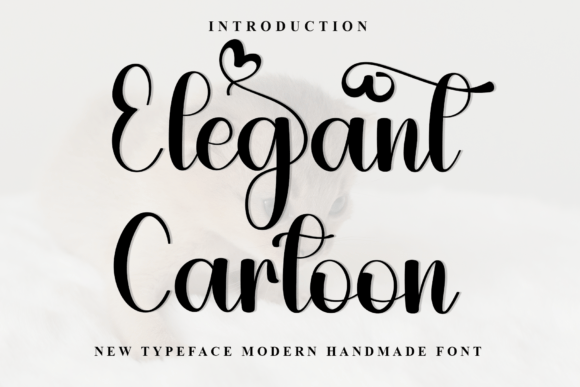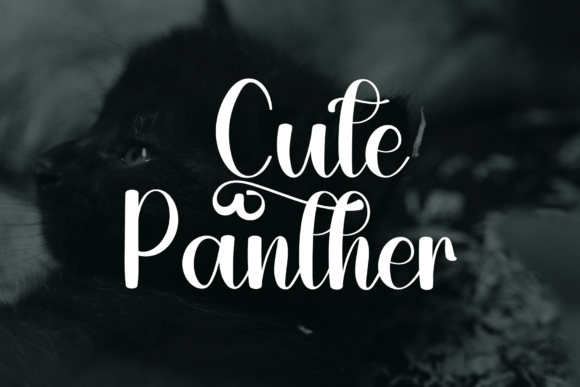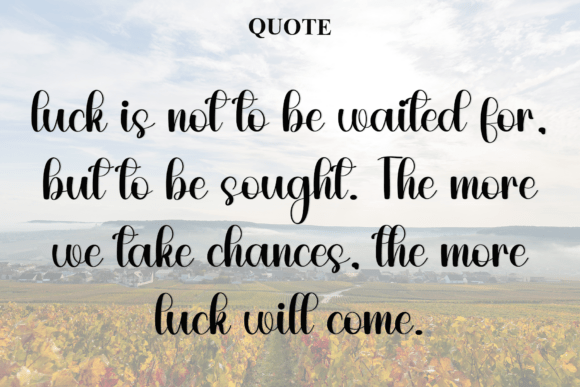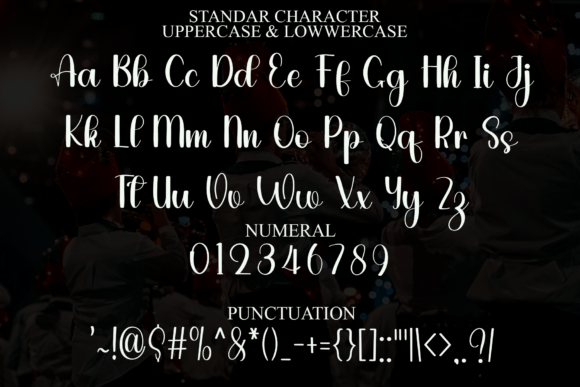
Where Creativity Meets Whimsy: The Charm of Elegant Cartoon Font
Have you ever been stuck in a creative rut, searching for the perfect font to bring your ideas to life? You know, that moment when you’re brainstorming a new project and suddenly, a spark of inspiration strikes – and you envision a playful, hand-drawn design that captures the essence of your vision.
Enter Elegant Cartoon Font, a delightful, casual font that exudes warmth and friendliness. Its rounded, playful strokes create a relaxed and approachable feel, making it perfect for personal projects, invitations, and social media graphics. Whether you’re a seasoned designer or a creative enthusiast, Elegant Cartoon Font is a valuable addition to your toolkit, offering a charming and unique touch to any design.
Elegant Cartoon Font Key Features
- Character Count: The font family includes over 200 characters, including letters, numbers, punctuation marks, and special characters, providing ample options for creative expression.
- Unique Characteristics: This font features a distinctive, hand-drawn style with smooth lines and subtle curves, giving it a playful and whimsical feel that’s perfect for children’s books, cartoons, and other creative projects.
- Font Style: The Elegant Cartoon Font comes in three different styles: Regular, Bold, and Italic, allowing designers to choose the perfect look and feel for their project.
Elegant Cartoon Font Review
I recently had the chance to play around with the Elegant Cartoon Font, and I must say it’s a mixed bag. Let’s start with what works well: ✨ The font is incredibly versatile, making it perfect for a wide range of projects, from children’s books to advertisements. It’s also extremely easy to customize, with a variety of style options available. ✨ The font’s whimsical feel is also a major plus, adding a touch of playfulness to any design.
However, there are some limitations to consider: ⚠️ The font can feel a bit too cartoonish at times, which may not be suitable for every project. Additionally, the font’s lack of subtlety can make it feel overwhelming in large quantities. ⚠️ The font also doesn’t have a lot of character variations, which can limit its use in certain contexts.
Overall, I’d say the Elegant Cartoon Font is a solid choice for designers looking to add a touch of whimsy to their work. While it may not be the best fit for every project, it’s definitely worth considering for the right type of design.
- Perfect for: Children’s books, advertisements, and other projects that require a playful feel
- Limited by: Overwhelming feel in large quantities, lack of character variations
Some tips for getting the most out of Elegant Cartoon Font include:
– Using it for playful and whimsical designs, such as children’s party invitations or nursery decor.
– Pairing it with bold, bright colors to create a fun and eye-catching look.
– Using it for headings and titles to add a touch of personality to your designs.
Great Vibes is a modern, elegant, and whimsical script font. It’s perfect for creating a sophisticated and playful atmosphere in designs, especially for branding, invitations, and editorial content. Great Vibes is more versatile and suitable for a wider range of projects compared to Elegant Cartoon Font, which is more specifically designed for cartoon-style illustrations and children’s content.
Pacifico is a beautiful, elegant, and stylish script font that’s ideal for creating a luxurious and high-end feel in designs. It’s perfect for branding, packaging, and advertising content where a touch of sophistication is required. Pacifico is more refined and formal compared to Elegant Cartoon Font, making it suitable for a wider range of industries and projects.